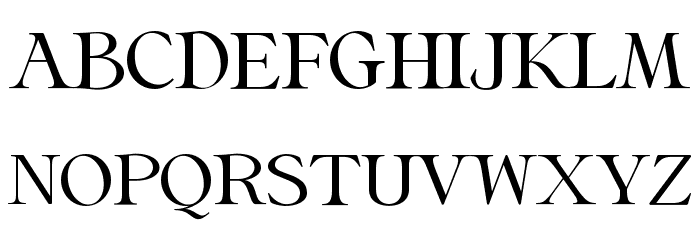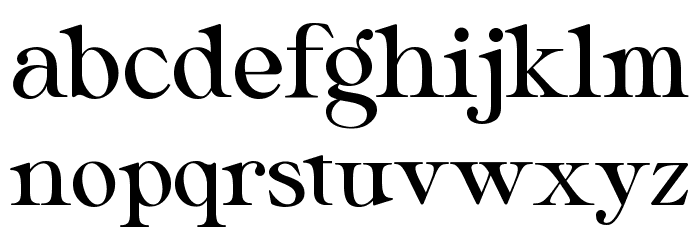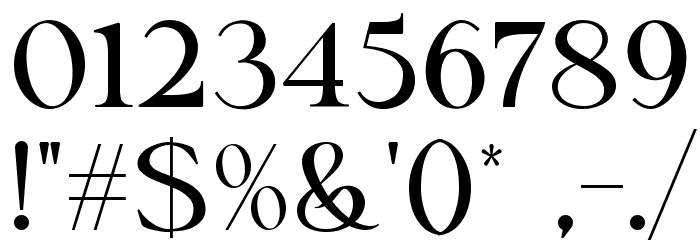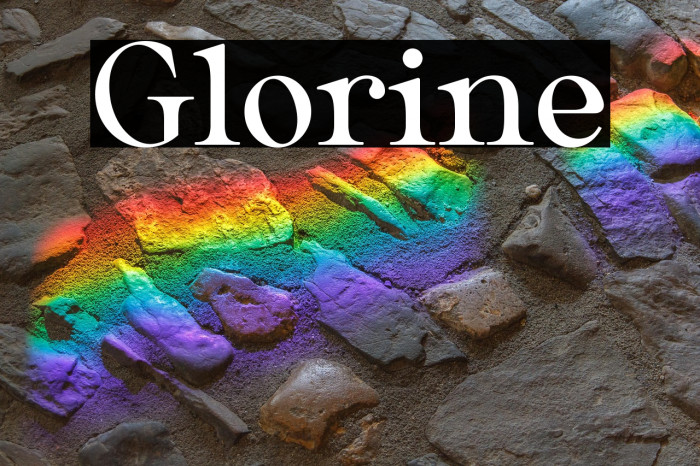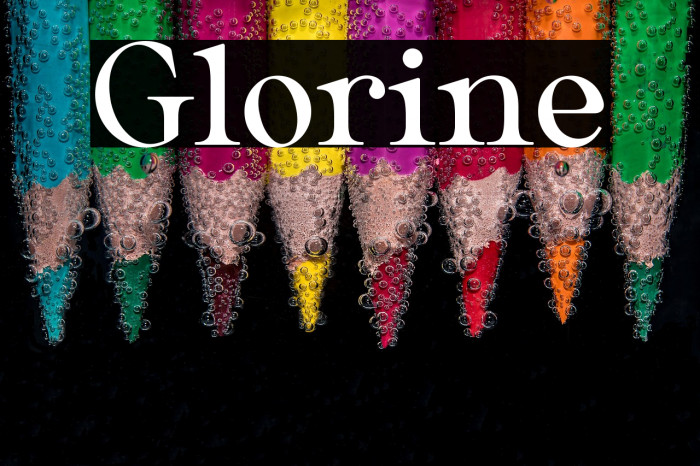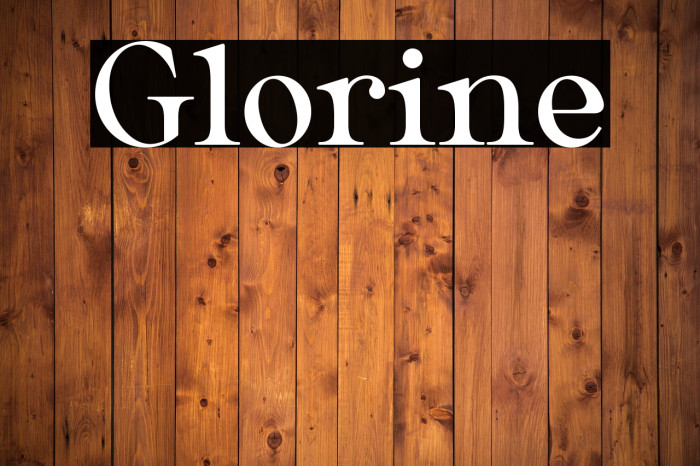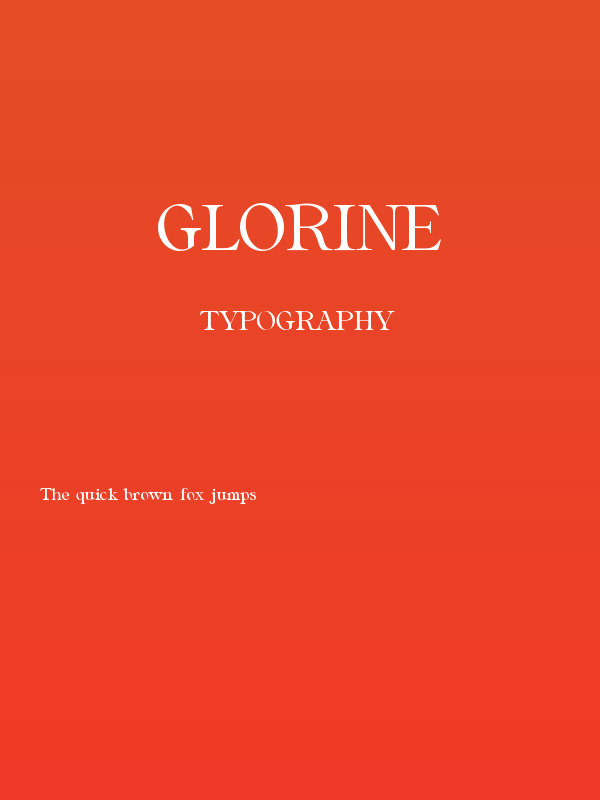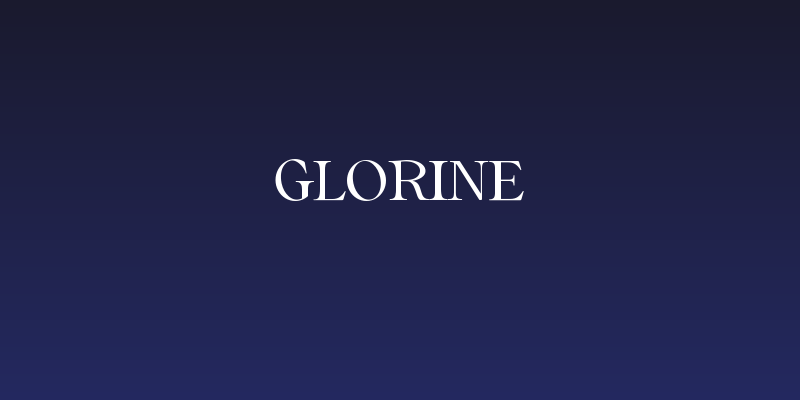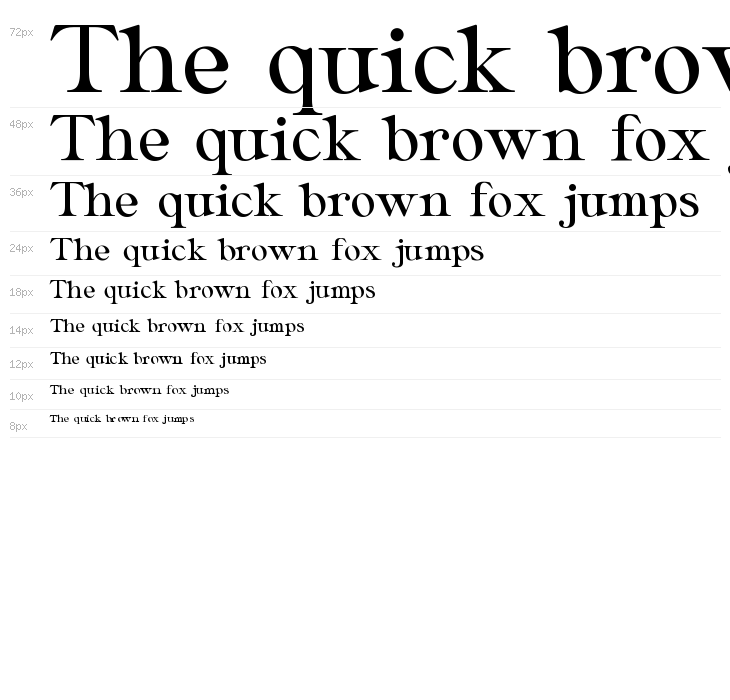
Glorine Font
This font features a classic serif style with elegant and refined strokes, offering a timeless appeal. The uppercase letters are bold and commanding, while the lowercase letters maintain a graceful and sophisticated look. The numerals are clear and distinct, ensuring readability. Special characters are designed with the same attention to detail, making them suitable for a variety of uses. The overall design is balanced, with a medium contrast between thick and thin strokes, providing a harmonious appearance. This font is ideal for projects that require a touch of elegance and tradition.
A classic serif font with elegant strokes and medium contrast, perfect for traditional and refined designs.
- Proposed Projects: Ideal for book covers, formal invitations, branding, and editorial design.
- Overall Style: Classic